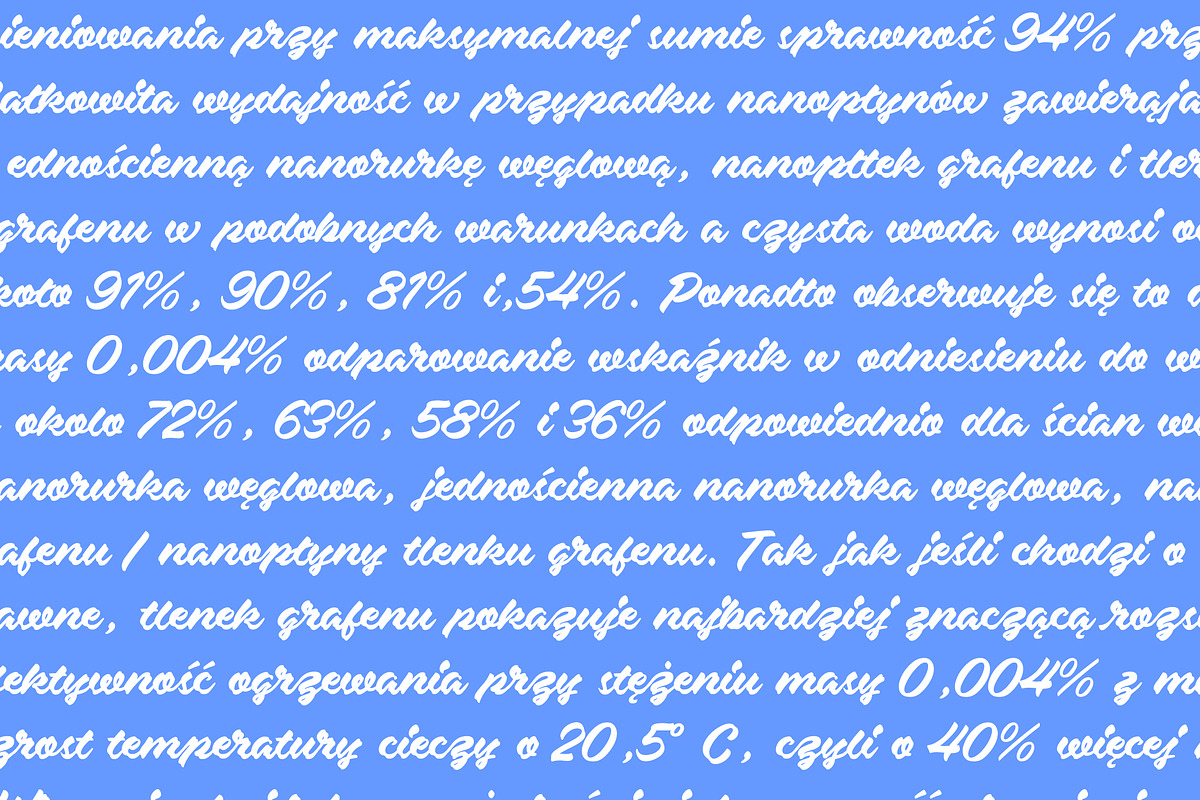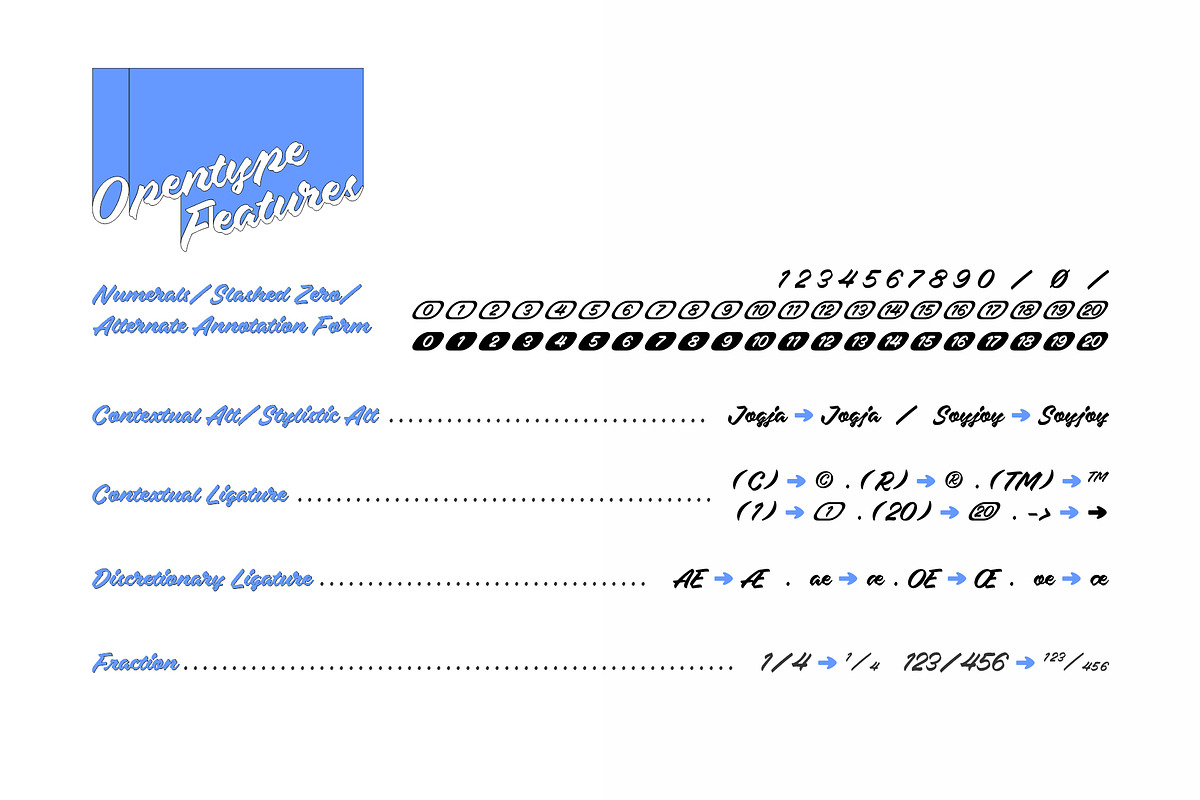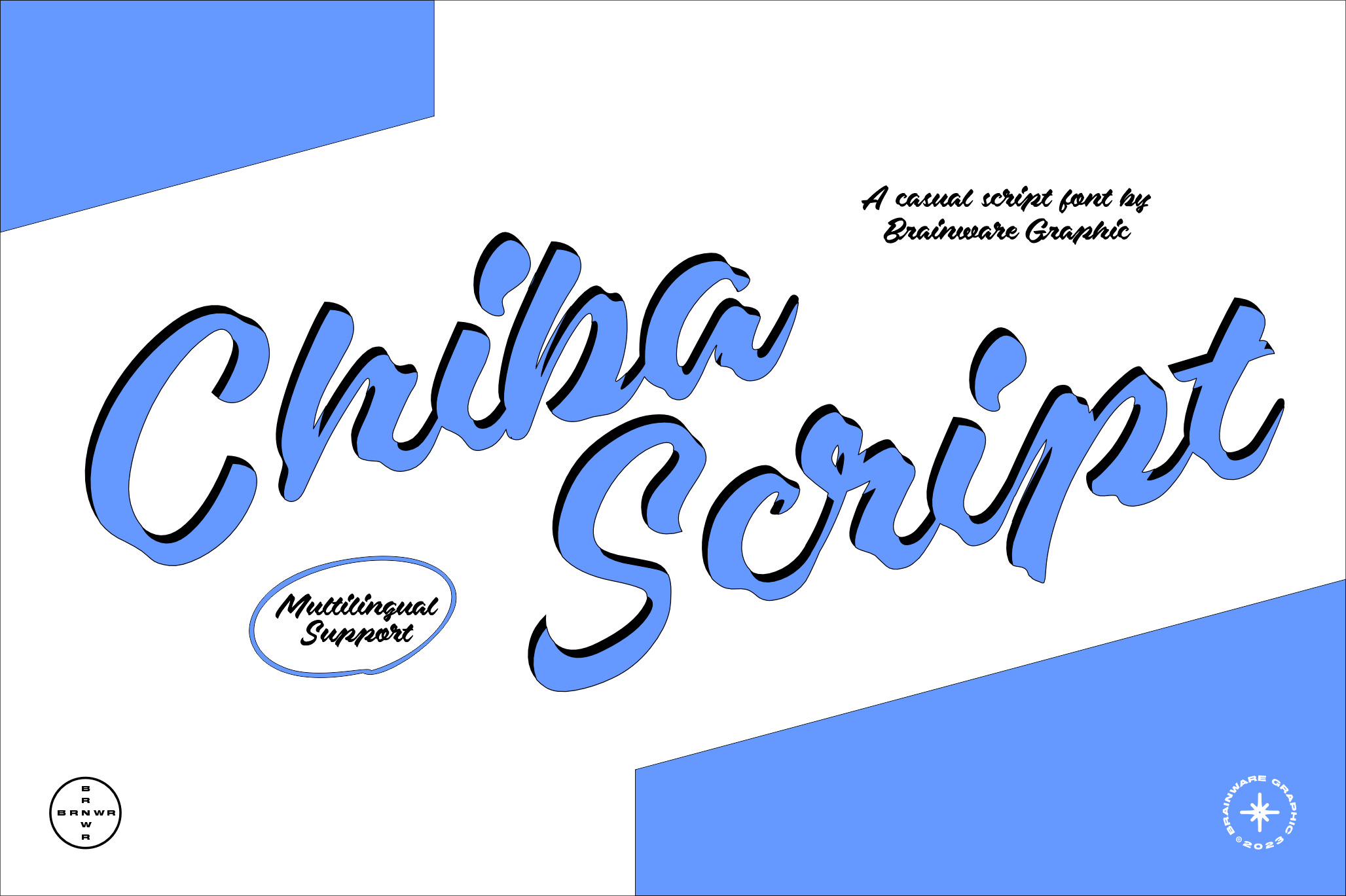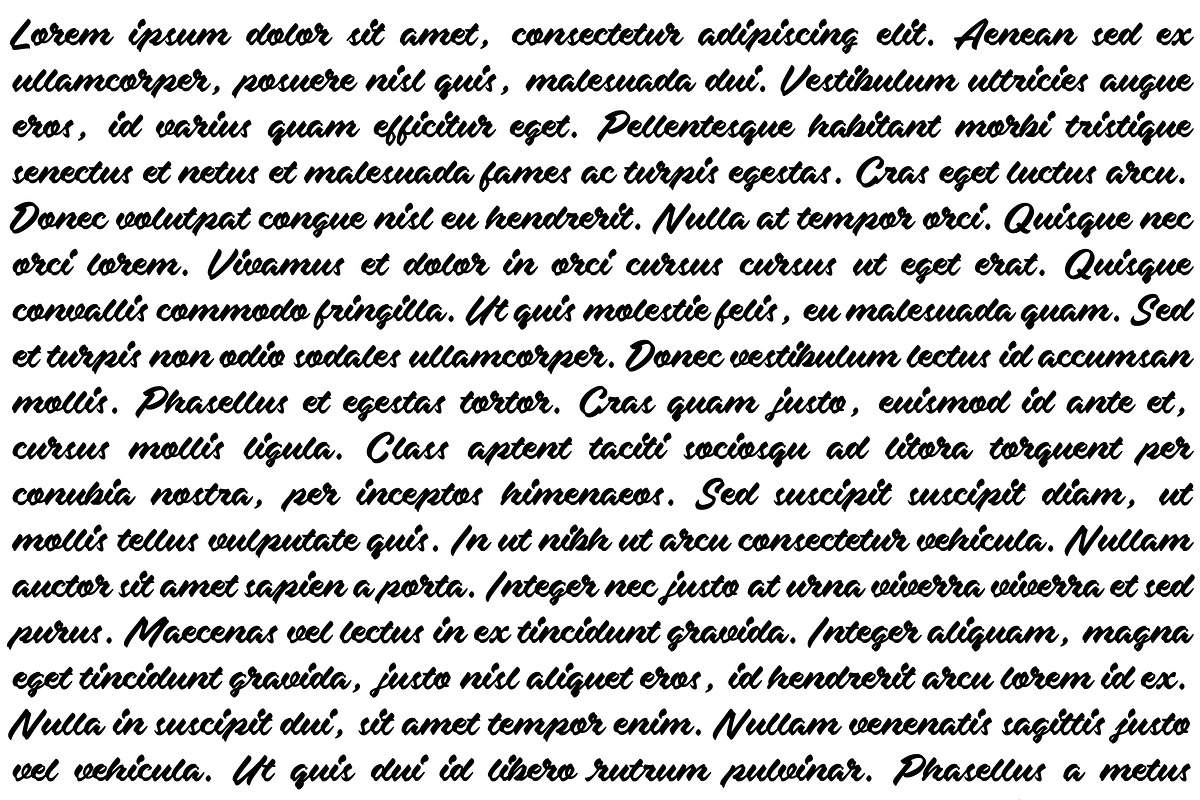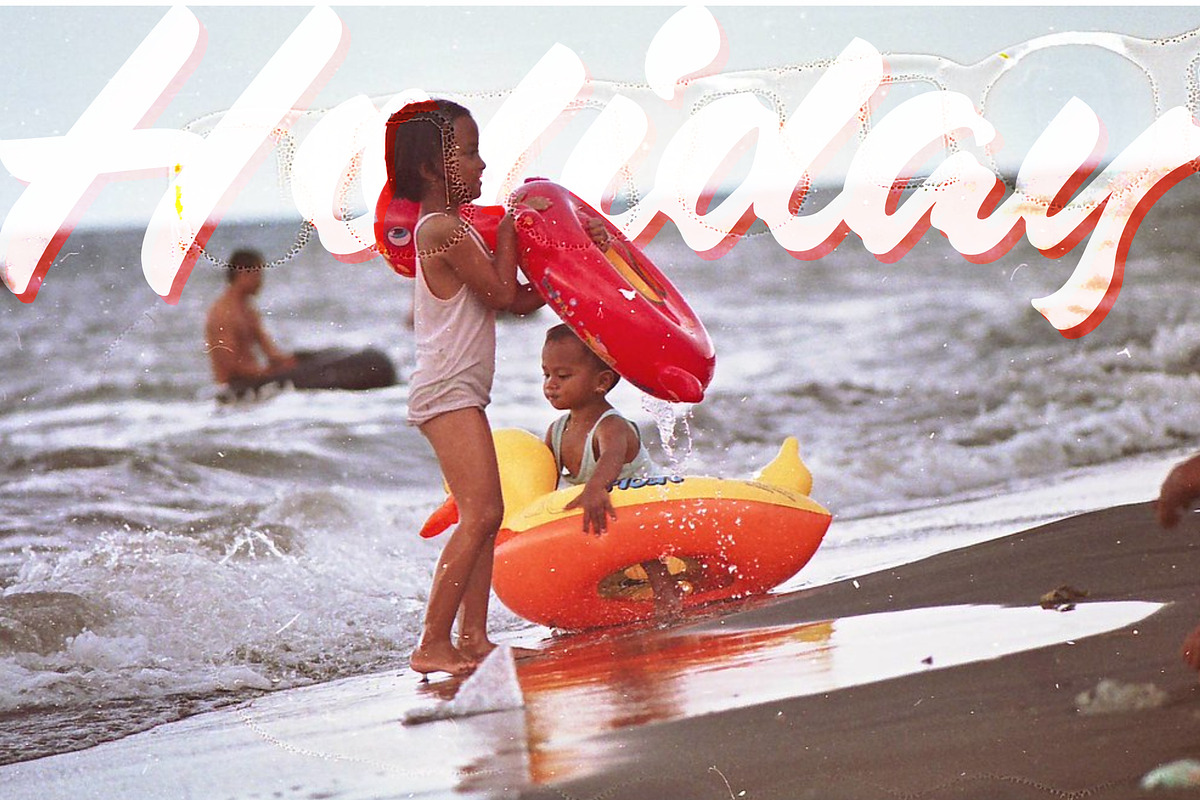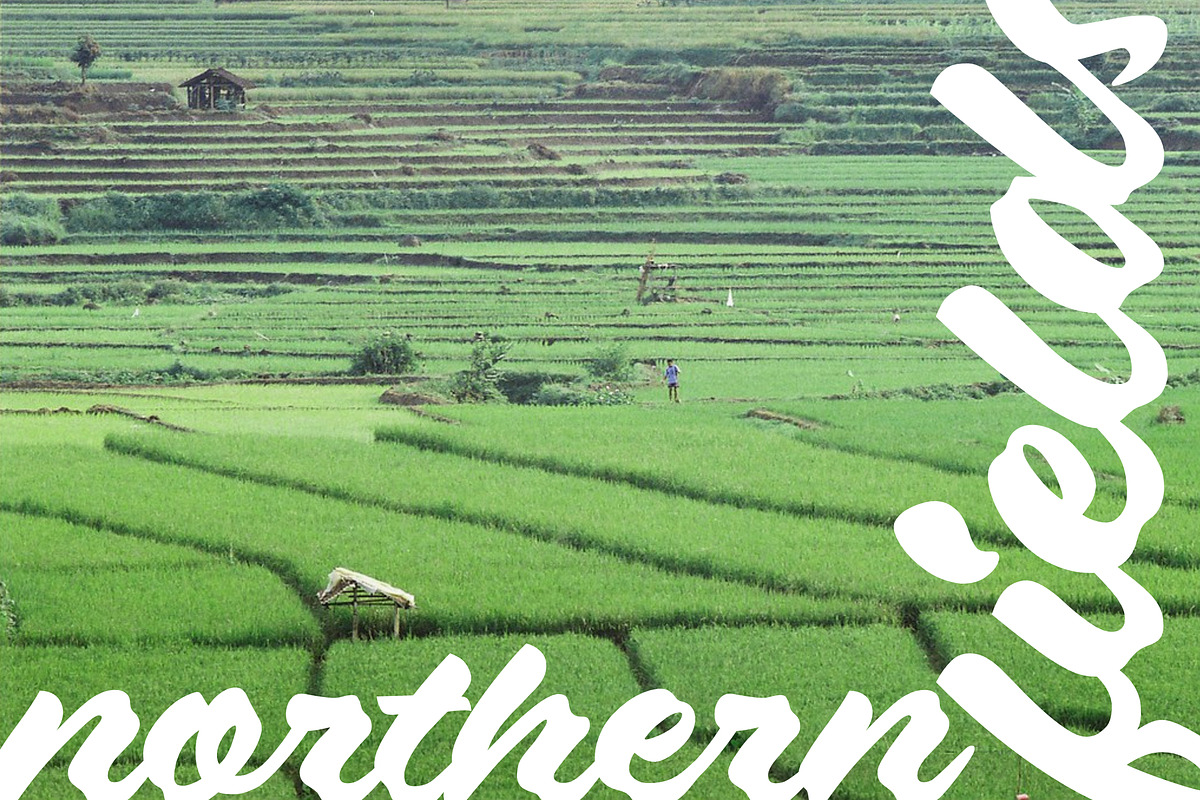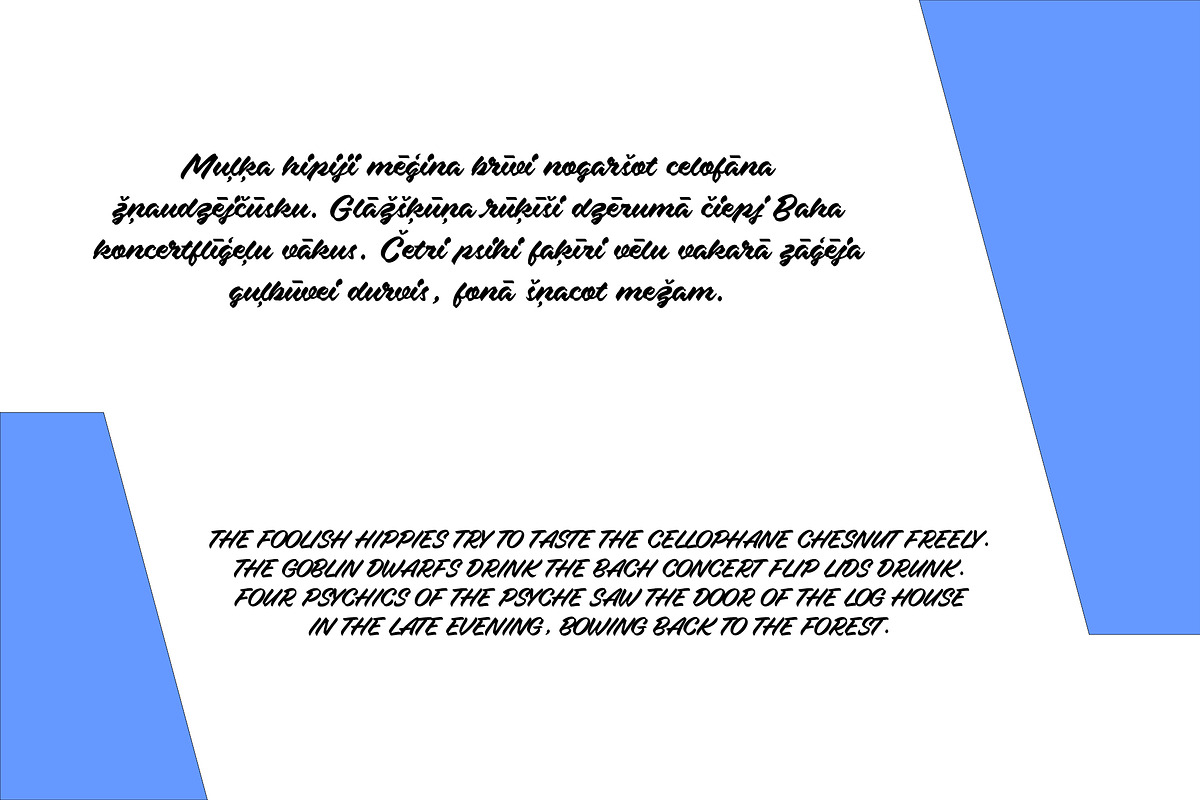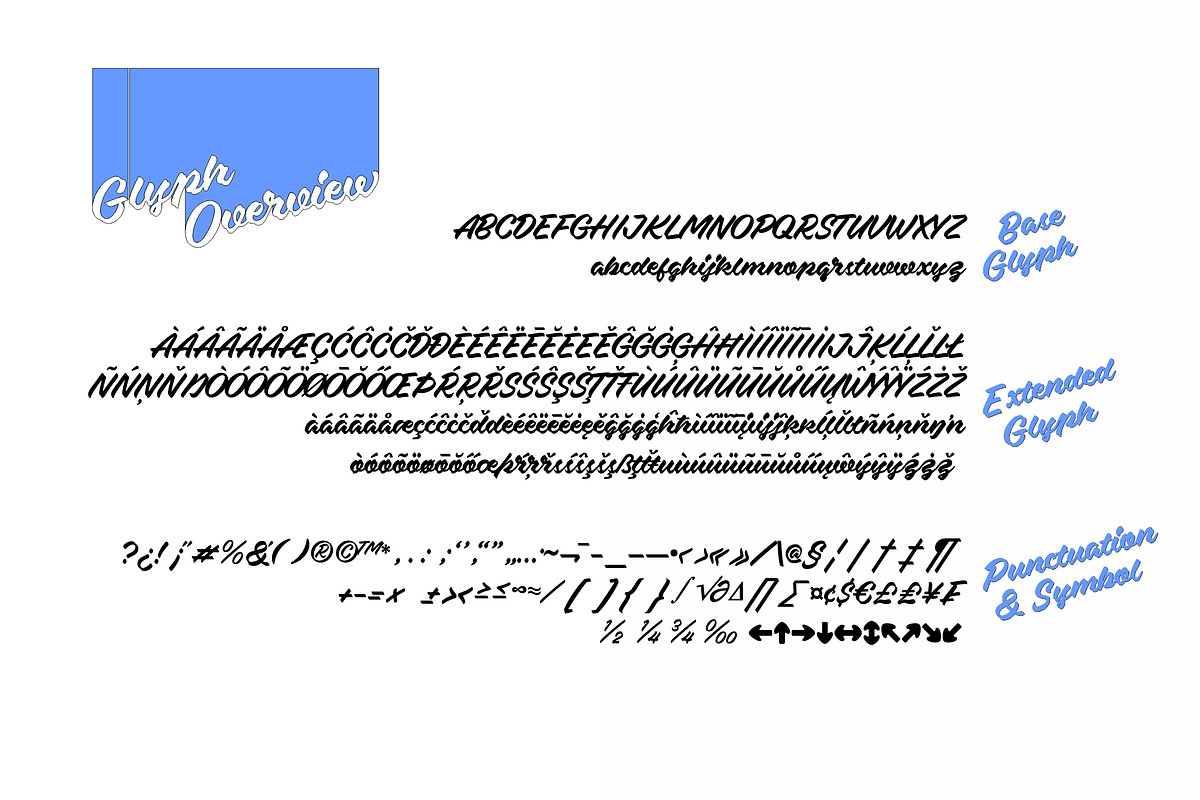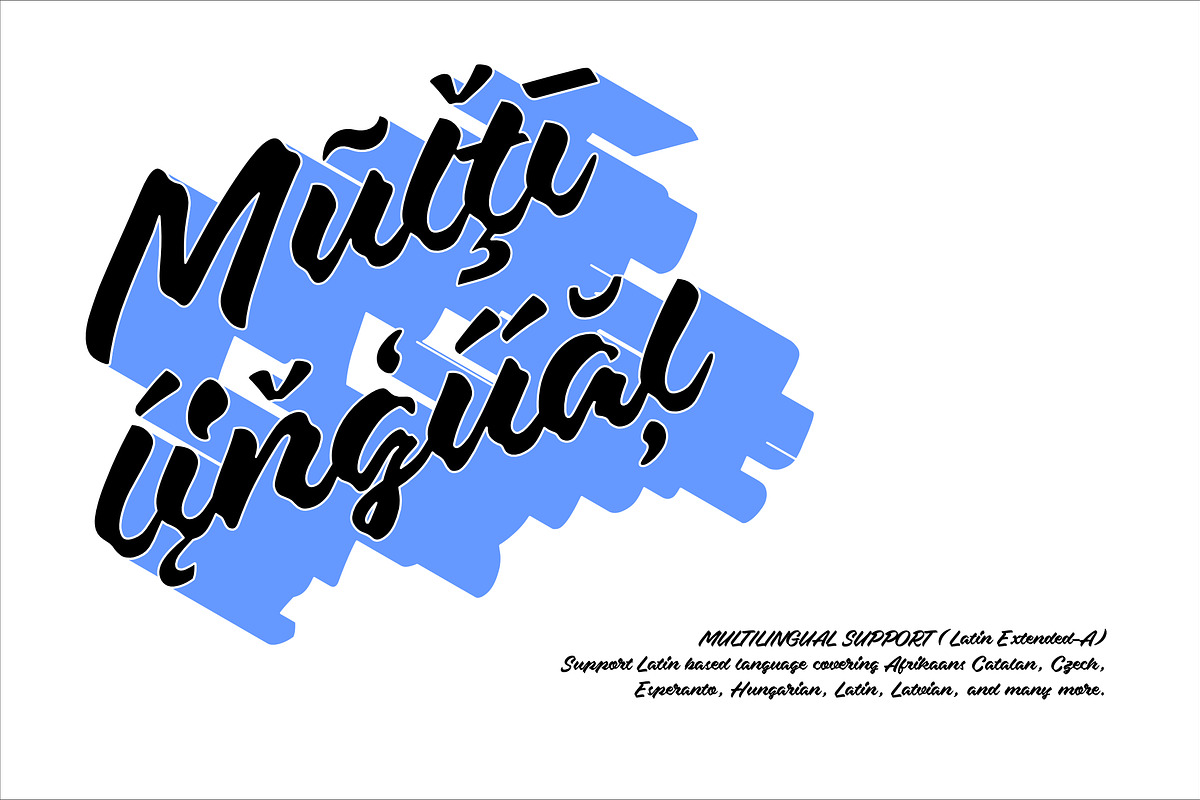
Chiba Script Font
Chiba Script is a casual script font inspired by hand lettering and vintage sign painting. Chiba Script has only single weight, bold weight.